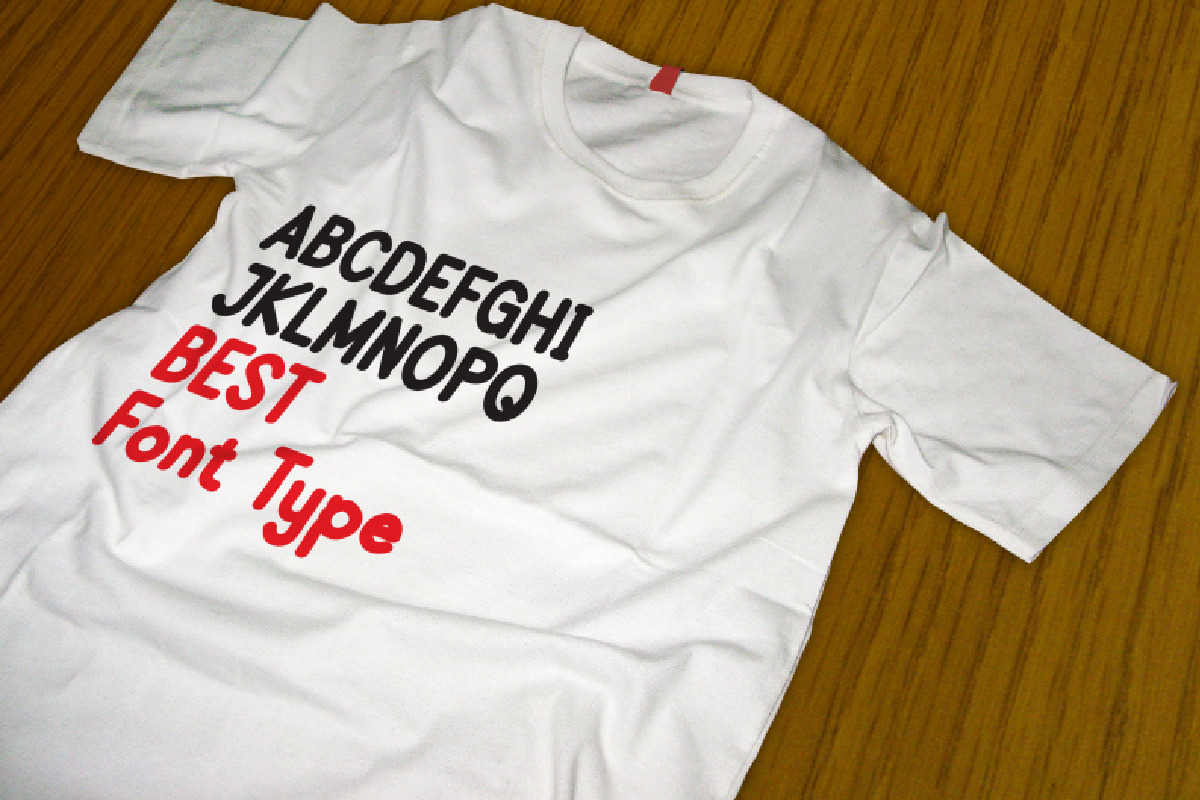
Njal Bold
Njal Bold is a cool and casual display font. Whether you use it for cartoon related designs, children games or just any creation that requires a lovely touch, this font will be an amazing choice.